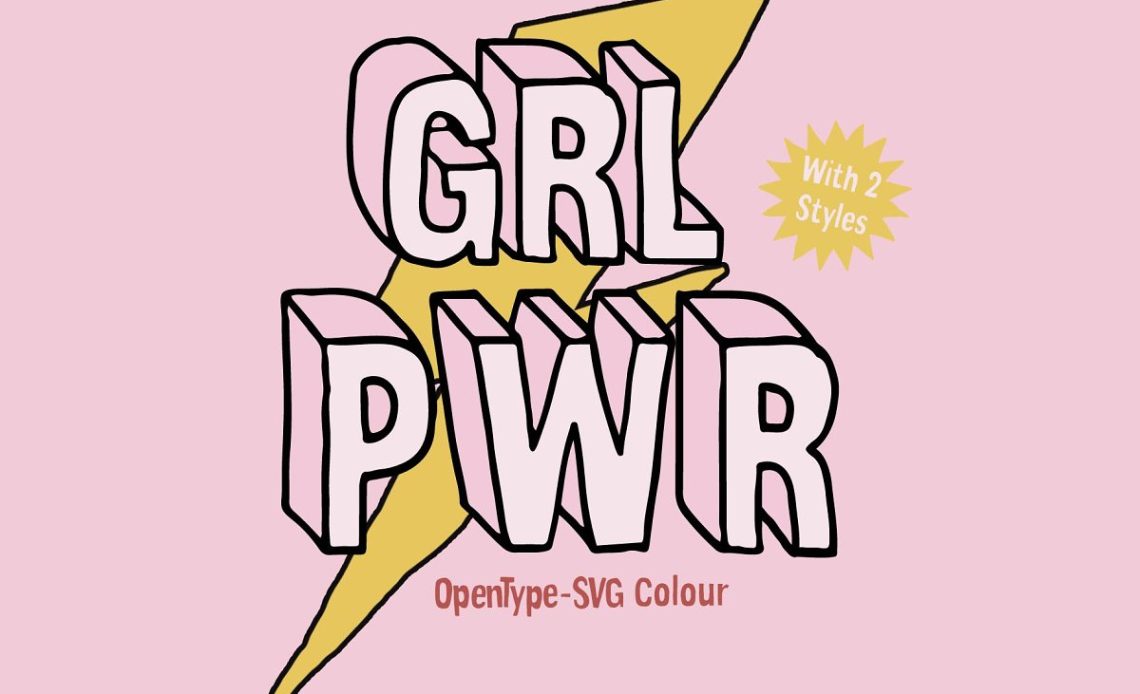
Are you looking for a cool, colourful and eye-catching font for your next project? Look no further than Display Font GRL PWR! Created by the talented Simon Stratford, this sans serif font is hand-drawn to give your letters a 3D or extruded look, making them stand out on any mini LED display.
But that's not all! This font is also an OpenType-SVG colour vector font, meaning that the pink shades with the black outline are built into the font, and the colours you see are the colours you get! The bold chunky outlines of GRL PWR make it playful, charming and easygoing, while the detail in each letter makes it look great at large point sizes.
GRL PWR is perfect for any project that needs to pop, such as birthday cards, headlines, posters, social media posts and packaging concepts. And with two styles to choose from - 3D and solid - this font is versatile and perfect for any occasion.
As a bonus, GRL PWR comes with standard characters, numbers, punctuation, and symbols, making it easy to use in any design software that supports OpenType-SVG fonts. And if you're wondering what that is, don't worry! OpenType-SVG fonts are the next big thing in typography, bringing rich colour to type, embedding them inside the typeface—no more black and white.
So why not choose Display Font GRL PWR for your next project and give it that extra bit of pizzazz? It's sure to make a lasting impression on anyone who sees it. And if you like this font, you'll love Simon's latest creation, Choose Love.